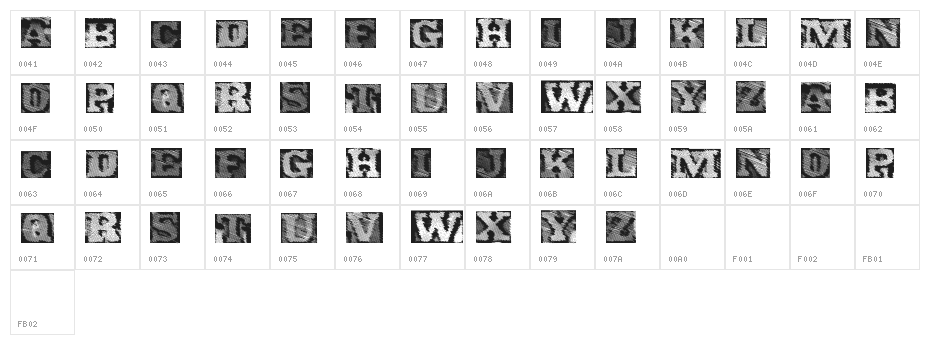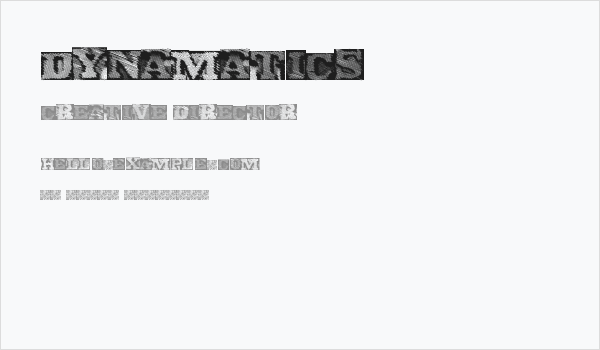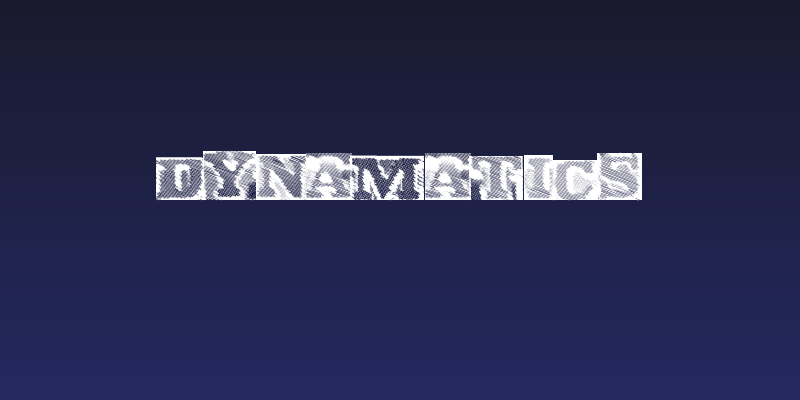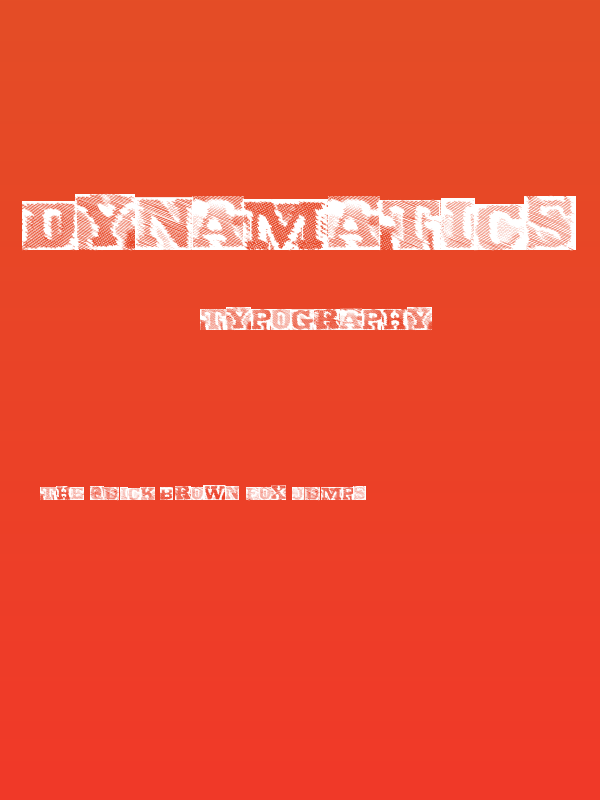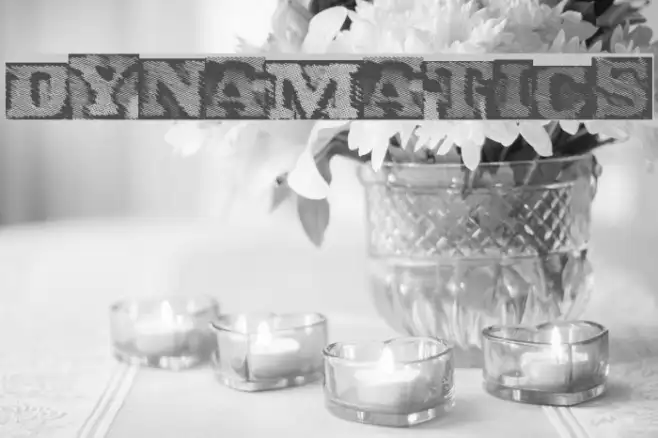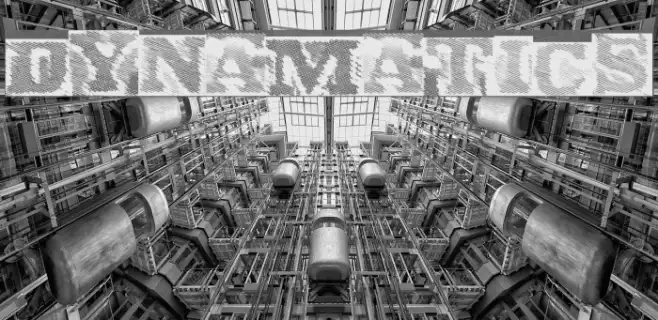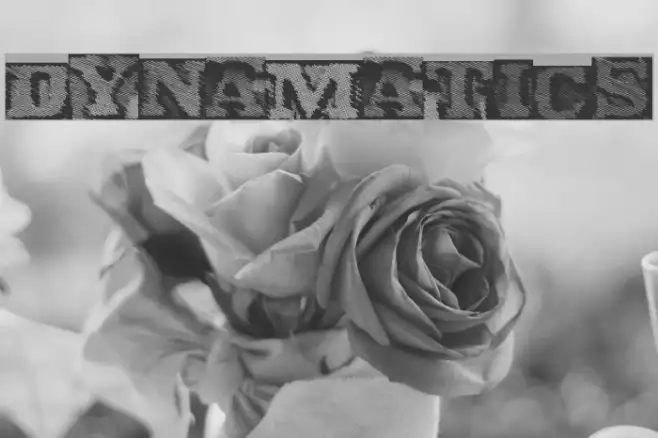
dynamatics Font
dynamatics Description
This font features a bold and dynamic design with a textured, almost distressed appearance. Each letter is crafted with a unique pattern that gives it a three-dimensional effect, making it stand out with a strong visual impact. The uppercase letters are particularly striking, with a bold presence that commands attention. The style is reminiscent of vintage or retro aesthetics, yet it maintains a modern edge through its innovative use of texture and shading. This font is ideal for projects that require a bold statement or a creative flair, such as posters, album covers, or branding materials.
| Overall Style | Vintage, Modern |
| Proposed Projects | Ideal for posters, album covers, branding, and creative design projects. |